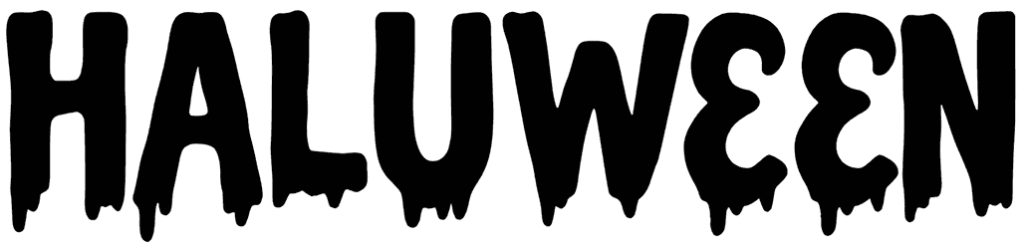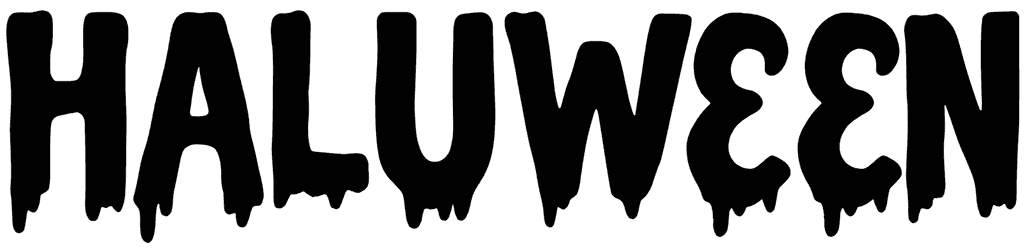
Haluween Font
The added element of blood splatter in Haluween can bring together the haunting unease that a designer needs. This horror font is the path that you can choose between not-so-scary and fantasy fonts.
Because its thick and bold lines do not look so scary, they are the best option for children’s projects. Adding this dripping font to books, posters, and movies can help intensify the sense of mild dread, even considering that it leaks small letters.